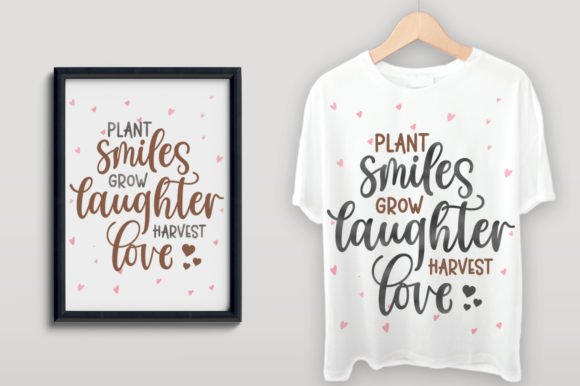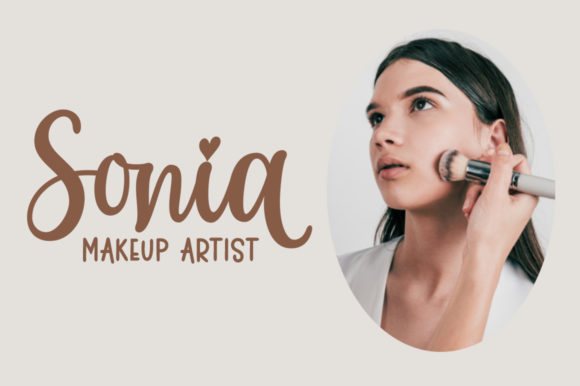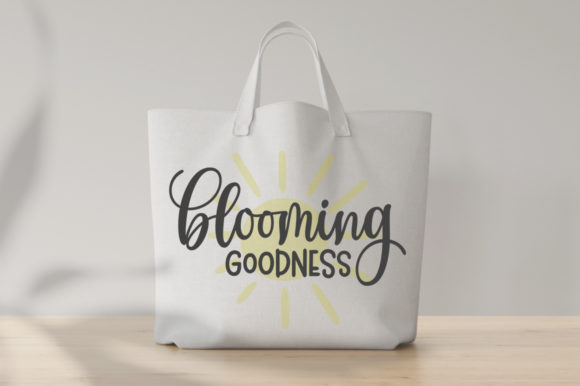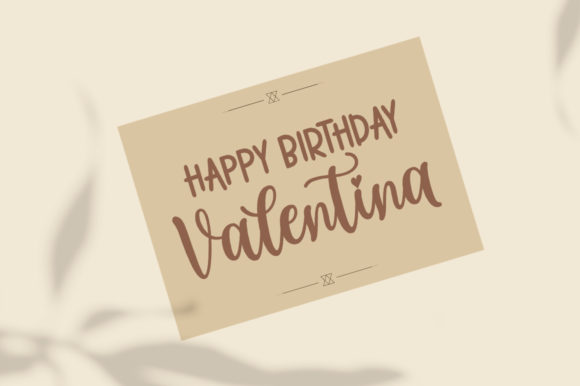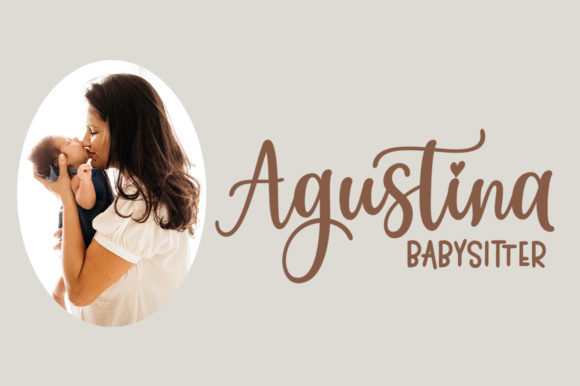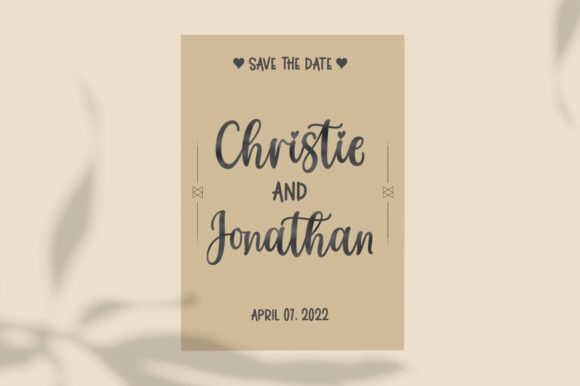
Introduction to Lovely Mothers Font
Lovely Mothers is a beautiful light duo font (sans serif and handwritten), with a unique feel and a stunning impact.
Key Features of Lovely Mothers Font
Why Choose Lovely Mothers Font?